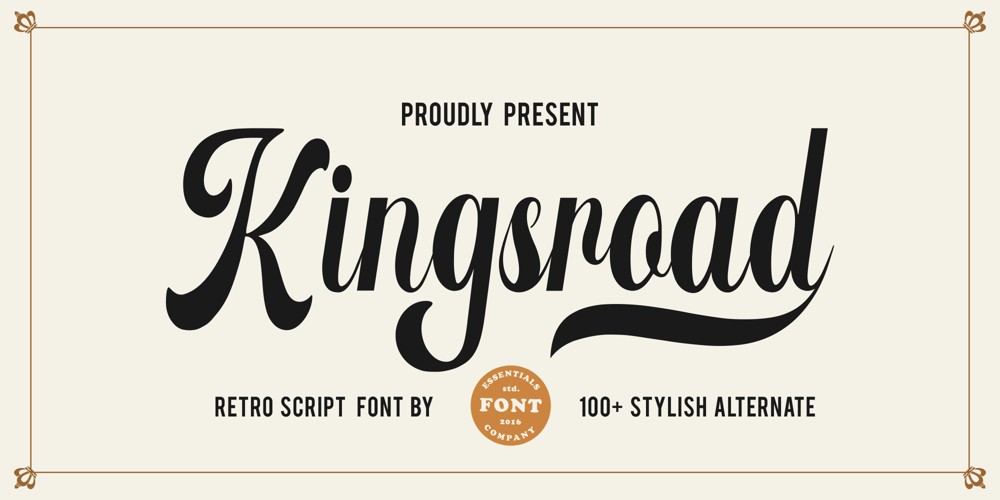
Kingsroads Font Family was designed by Bagus Panji Asmoro and published by Essentials Studio. Kingsroads contains 1 styles and family package options. Introducing by Essentials StudioProudly Present, Kingsroad Is a A Modern Retro Script Font With 100+ AlternateKingsroad is perfect for product packaging, branding project, megazine, social media, wedding, or just used to express words above the background.